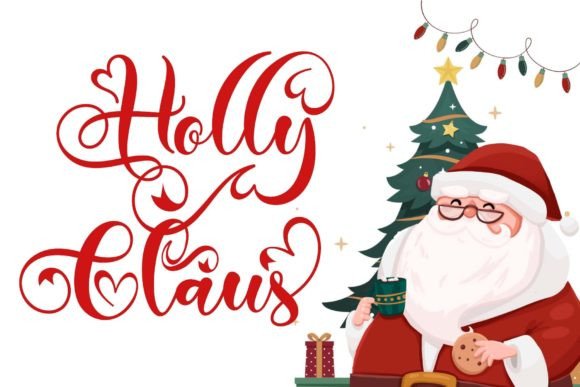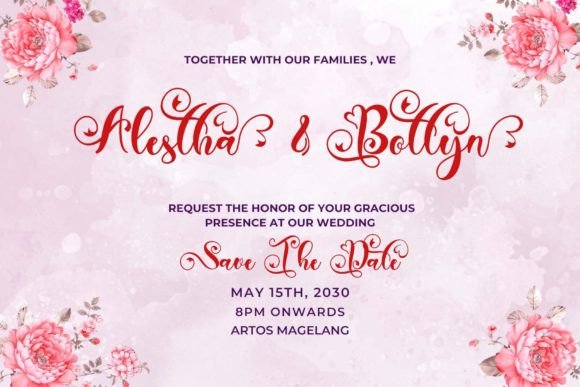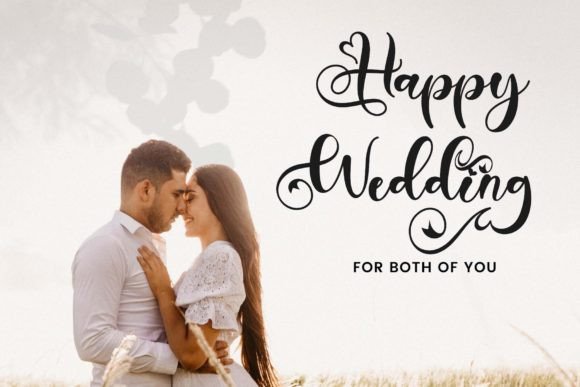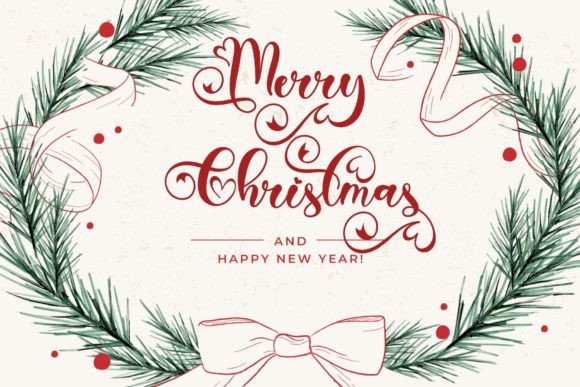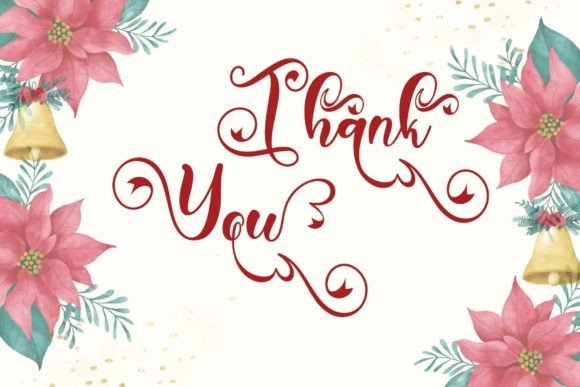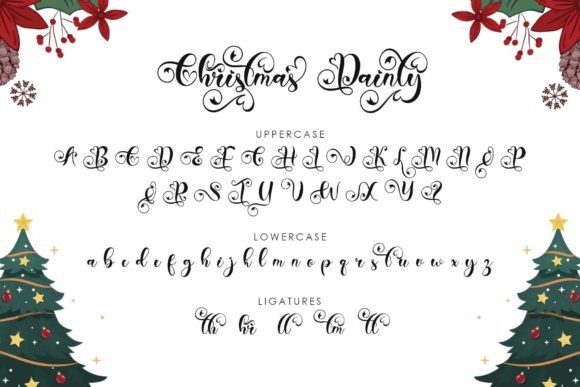
Introducing Christmas Dainty Font: A Beautiful Handwritten Font for the Holiday Season
Are you looking for a font that captures the essence of the holiday season? Look no further than Christmas Dainty, a stunning handwritten font that is perfect for Christmas, Valentine’s Day, Fall, and all your festive needs. In this article, we’ll dive into the features and benefits of Christmas Dainty, and explore how you can use it to elevate your designs.
What is Christmas Dainty Font?
Christmas Dainty is a beautiful handwritten font that comes with a wide range of characters, including capital letters, lowercase letters, ligatures, swashes, alternates, numbers, punctuation, and multilingual support. This font is designed to be versatile and can be used for a variety of projects, from invitations and weddings to photography and business branding.
Key Features of Christmas Dainty Font
- Capital Letters: Christmas Dainty comes with elegant capital letters that are perfect for titles, headings, and emphasis.
- Lowercase Letters: The font also includes beautiful lowercase letters that are great for body text, descriptions, and captions.
- Ligatures: Ligatures are special characters that combine two or more letters to create a unique and beautiful effect. Christmas Dainty includes a range of ligatures to add a touch of elegance to your designs.
- Swashes: Swashes are decorative flourishes that can add a touch of sophistication to your designs. Christmas Dainty includes a range of swashes to help you create stunning titles and headings.
- Alternates: Alternates are alternative characters that can be used to add variety to your designs. Christmas Dainty includes a range of alternates to help you create unique and interesting text.
- Numbers and Punctuation: The font also includes a range of numbers and punctuation marks, making it perfect for creating text-based designs.
- Multilingual Support: Christmas Dainty supports multiple languages, making it a great choice for designers who work with international clients.
Uses for Christmas Dainty Font
Christmas Dainty is a versatile font that can be used for a wide range of projects, including:
- Christmas Invitations: Create beautiful and festive Christmas invitations that will impress your friends and family.
- Valentine’s Day Cards: Use Christmas Dainty to create romantic and elegant Valentine’s Day cards.
- Fall Decor: The font’s autumnal feel makes it perfect for Fall-themed designs, such as harvest festivals and Thanksgiving invitations.
- Weddings: Christmas Dainty is a great choice for wedding designs, including invitations, programs, and place cards.
- Photography: Use the font to add a touch of elegance to your photography, including album covers, captions, and title pages.
- Business Branding: Christmas Dainty can be used to create stunning business branding, including logos, letterheads, and marketing materials.
- Logos: The font’s unique and elegant feel makes it perfect for creating custom logos for businesses and brands.
- Stickers: Use Christmas Dainty to create beautiful and festive stickers for parties, gifts, and more.
- Parties: The font is perfect for creating party invitations, decorations, and favors.
Why Choose Christmas Dainty Font?
So why choose Christmas Dainty font? Here are just a few reasons:
- Unique and Elegant: Christmas Dainty is a unique and elegant font that will add a touch of sophistication to your designs.
- Versatile: The font is versatile and can be used for a wide range of projects, from Christmas invitations to business branding.
- Easy to Use: Christmas Dainty is easy to use and comes with a range of features, including ligatures, swashes, and alternates.
- Multilingual Support: The font supports multiple languages, making it a great choice for designers who work with international clients.
In conclusion, Christmas Dainty font is a beautiful and versatile font that is perfect for the holiday season. With its elegant and unique feel, it’s ideal for a wide range of projects, from Christmas invitations to business branding. Whether you’re a designer, crafter, or DIY enthusiast, Christmas Dainty is a great choice for adding a touch of sophistication to your designs.